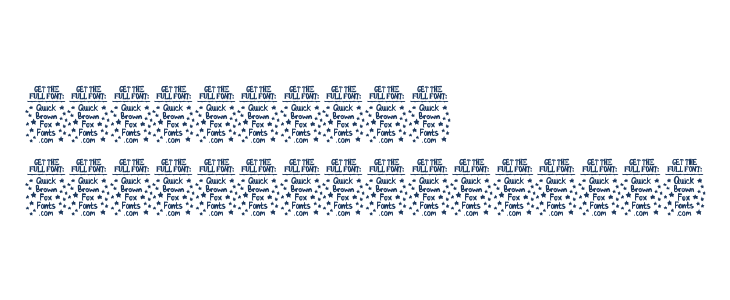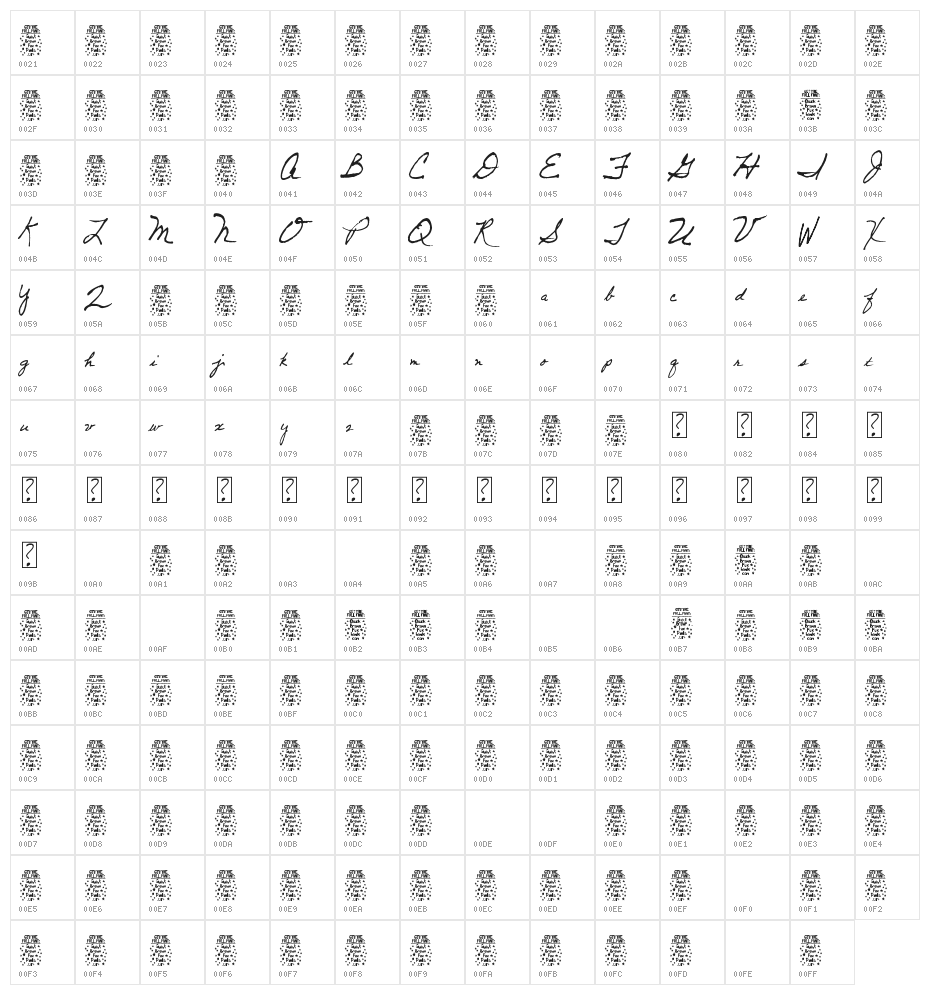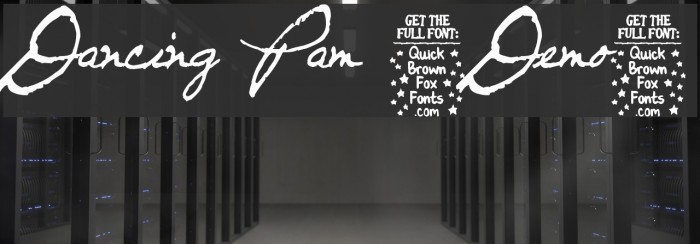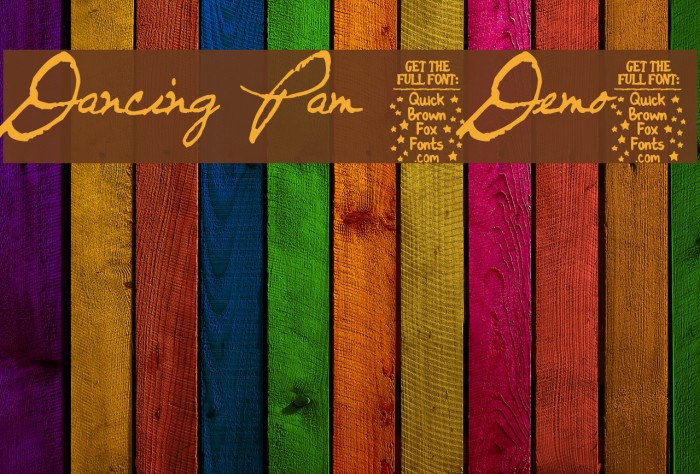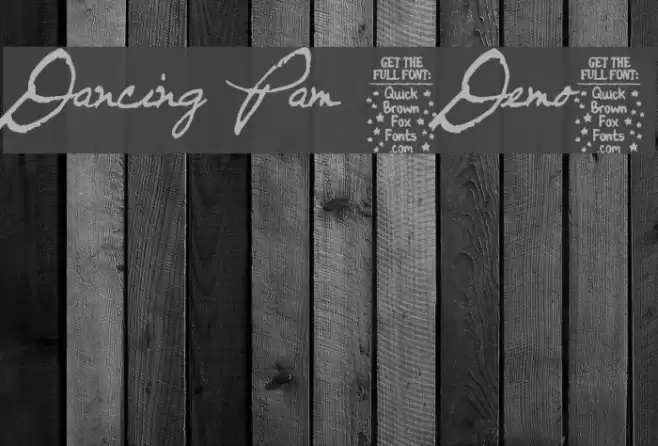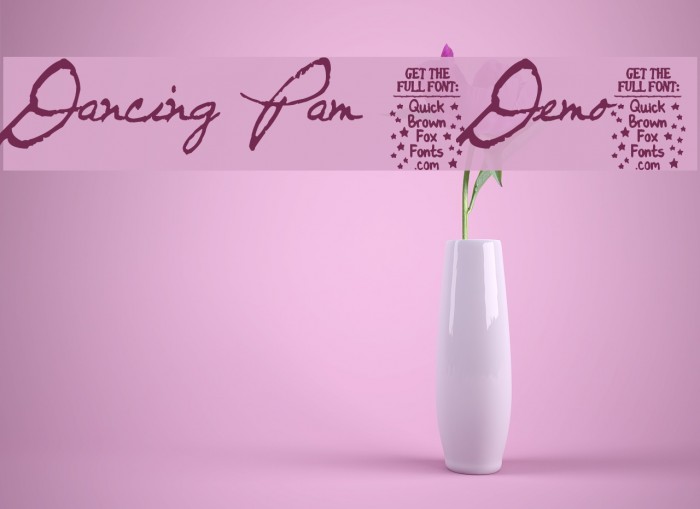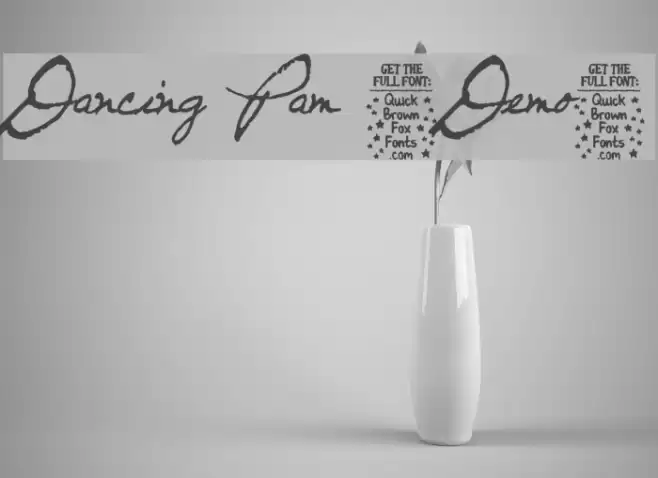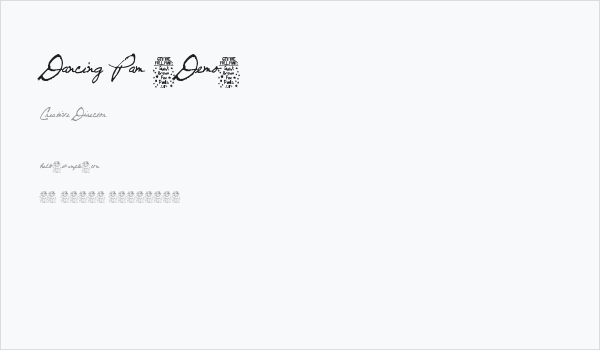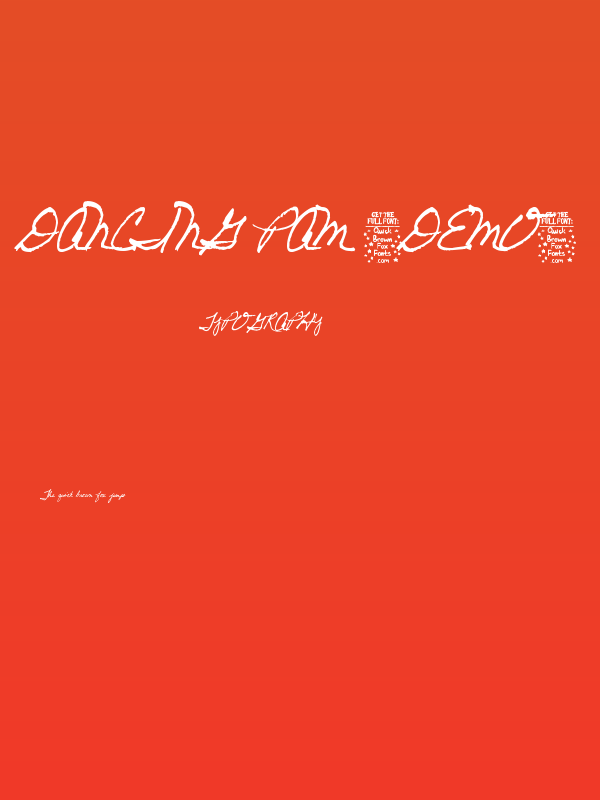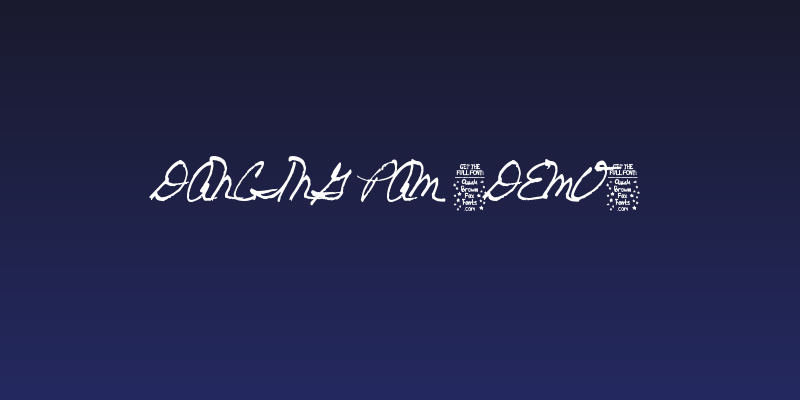
Dancing Pam [Demo] Font
Dancing Pam [Demo] Description
This font exudes a lively and dynamic energy, characterized by its fluid and cursive style. The letters are interconnected with smooth, sweeping strokes that mimic the natural flow of handwriting. The uppercase letters are bold and prominent, while the lowercase letters maintain a consistent rhythm, adding to the overall elegance. The font's organic curves and varying line thickness give it a personal touch, making it suitable for projects that require a humanistic and approachable feel. Its artistic flair is perfect for creative endeavors, adding a touch of sophistication and charm.
| Proposed Projects | Ideal for wedding invitations, greeting cards, personal branding, and artistic projects. |